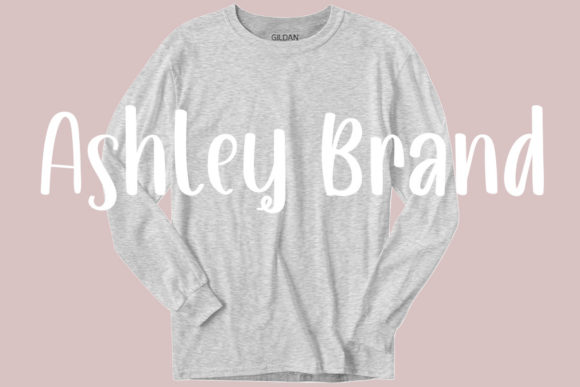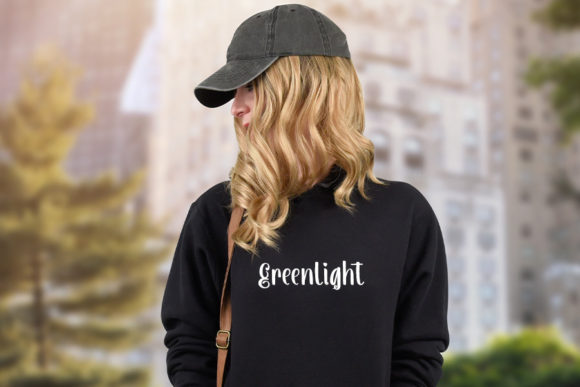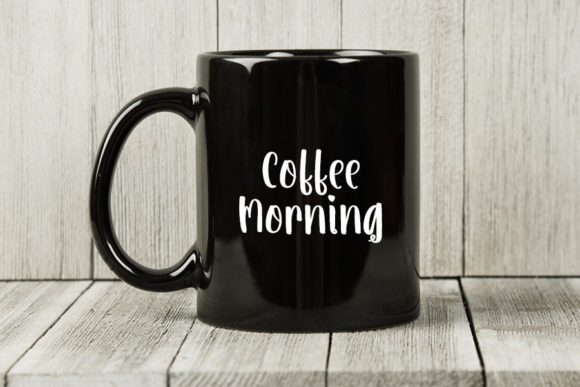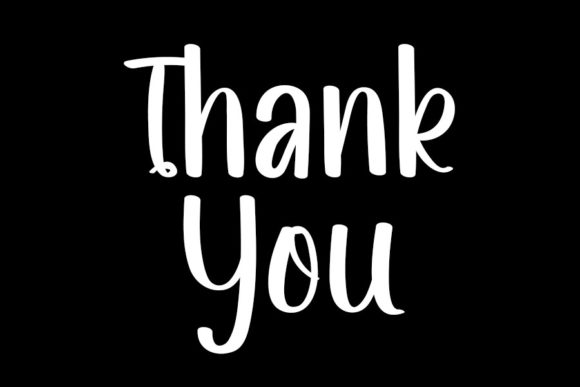
Germany Font
About Germany Font
Germany is a chic, trendy script font that emanates confidence and versatility. Its stylish alternates and ligatures make this font the perfect match for any project.